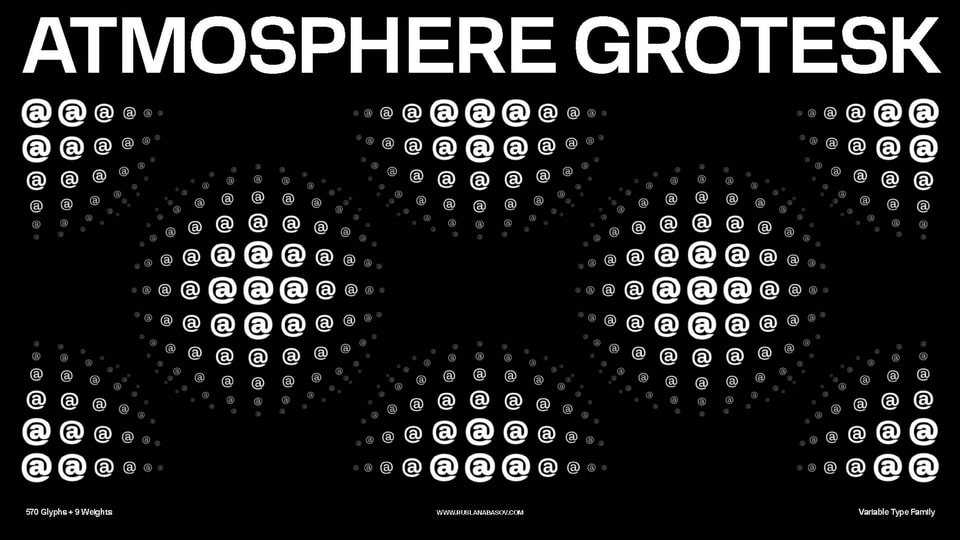
Atmosphere Grotesk Font › Fontesk – Download Grátis
Download Atmosphere Grotesk font, a conceptual variable typeface with its fluid space that exists and recreates itself many times in a single type family. As a result Atmosphere Grotesk enables gestural typesetting that allows to give the stylish personality to the body text by various stylistic concepts.
Designer: Ruslan Abasov